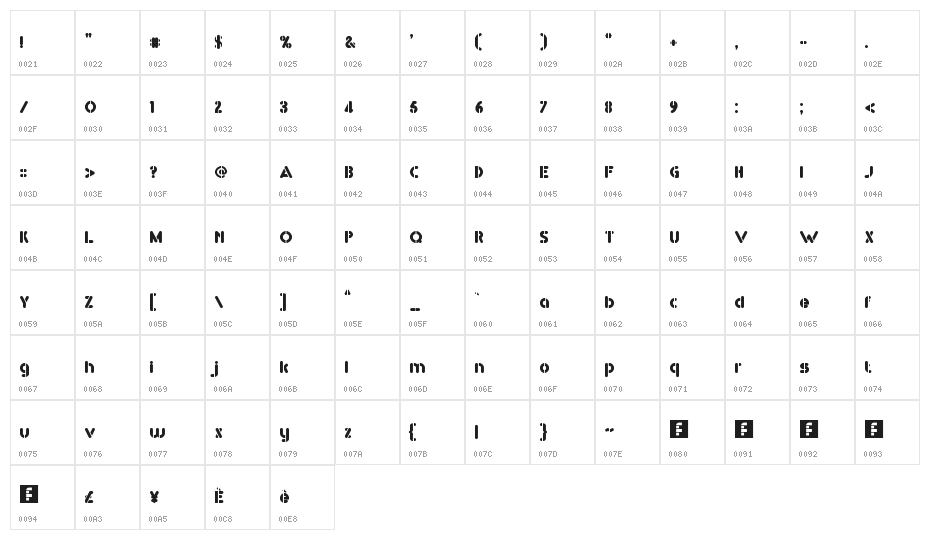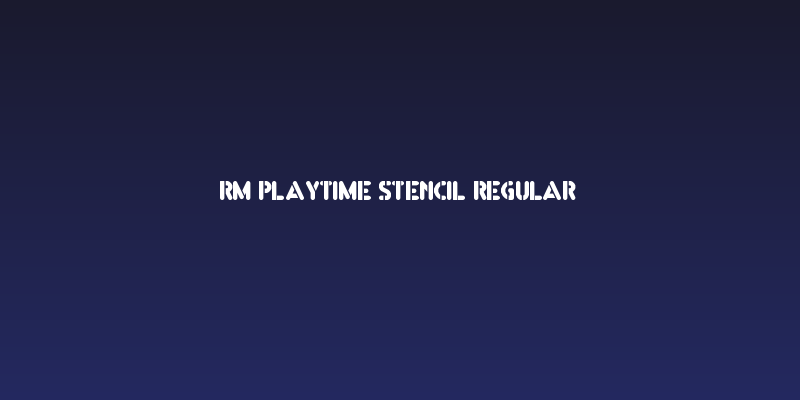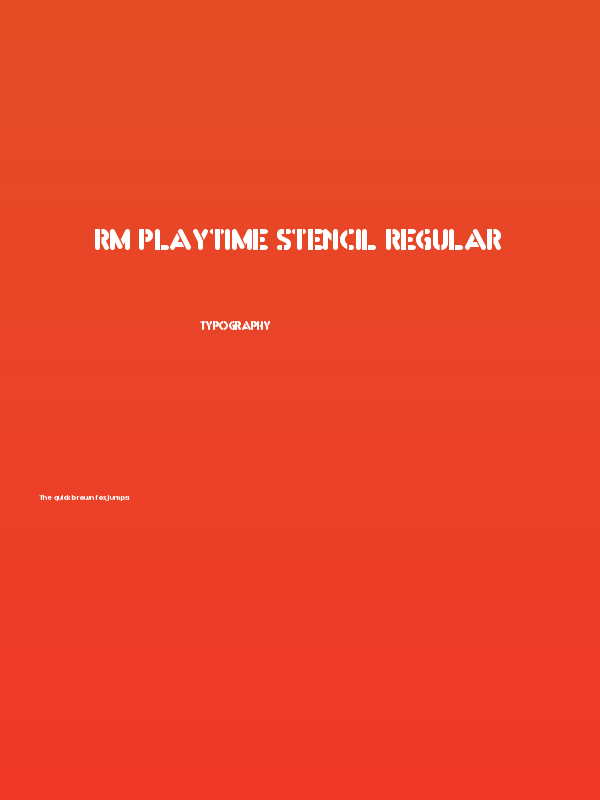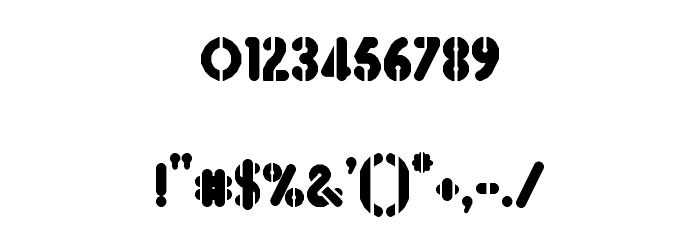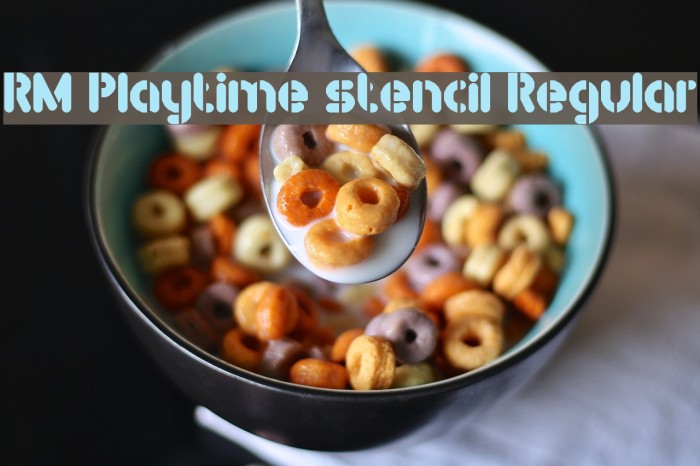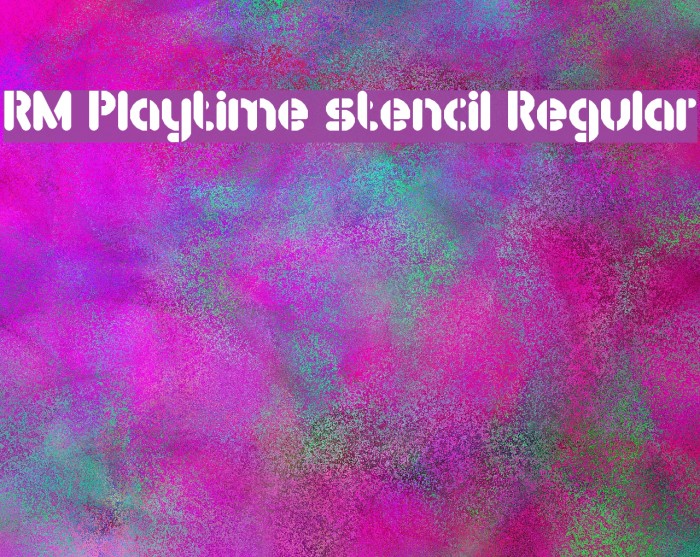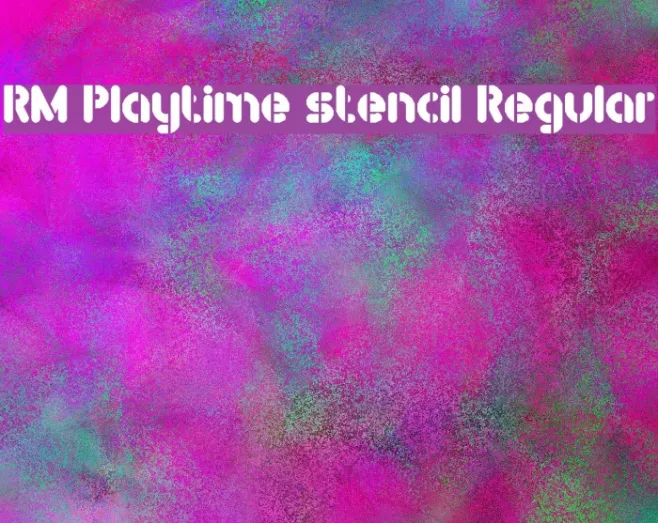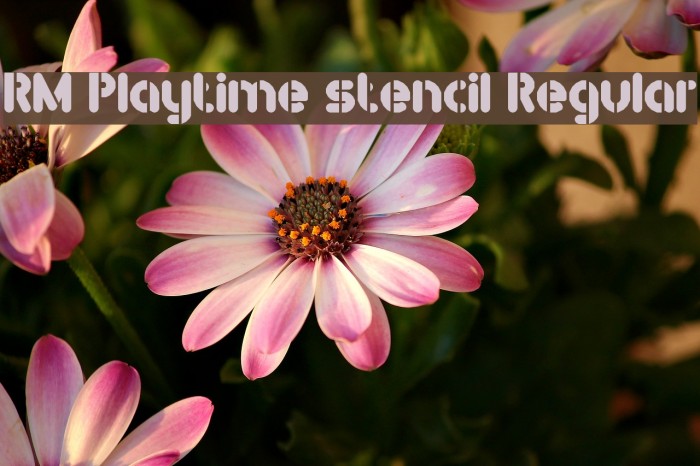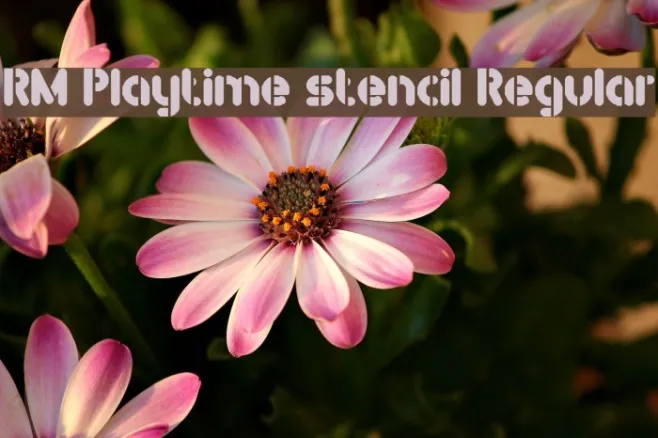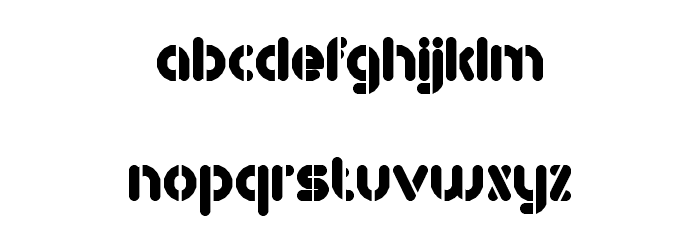
RM Playtime stencil Regular Font
RM Playtime stencil Regular Description
This font features a playful and modern stencil design, characterized by its bold and rounded letterforms. The cut-out sections within each character give it a distinctive and eye-catching appearance, making it ideal for creative and artistic projects. The uppercase and lowercase letters maintain a consistent style, with smooth curves and uniform thickness. Numbers and special characters are designed to match the overall aesthetic, ensuring a cohesive look across all text elements. The font's unique style is both functional and decorative, suitable for a variety of uses.
| Proposed Projects | Ideal for posters, children's books, playful branding, and creative packaging. |